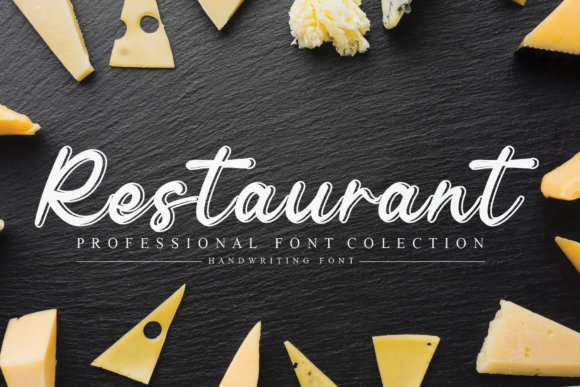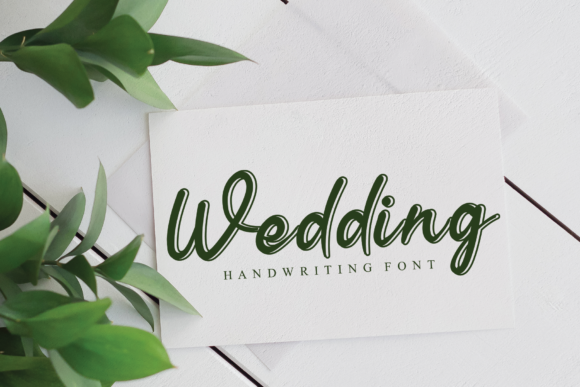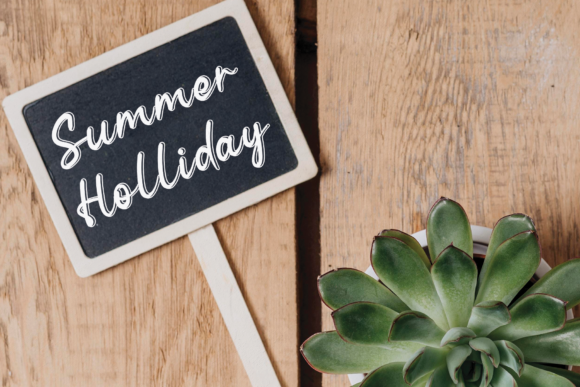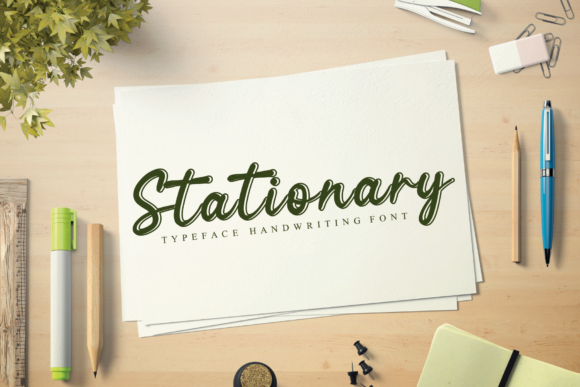
Discover the Perfect Script for Your Next Creative Project
There’s something magical about scribbling down a wedding invitation or a heartfelt letter to a loved one. It’s a moment of pure creativity, where the pen meets the paper and emotions flow freely. As designers, we’re always on the lookout for that special something that brings our designs to life, and sometimes, it’s all about the right font.
Enter the Beautiful Scenery Font, a sweet and delicate handwritten font that exudes joy and romance. With its dainty lines and gentle curves, this font is perfect for adding a personal touch to your designs. Whether you’re crafting wedding invitations, cards, or any other design that needs a touch of whimsy, the Beautiful Scenery Font is sure to impress. As designers, we can appreciate the value of having a versatile and stylish font at our disposal, and the Beautiful Scenery Font is no exception.
Beautiful Scenery Font Key Features
- Unique Characteristics: The Beautiful Scenery Font features a unique blend of natural and elegant elements, with intricate details and subtle textures that evoke a sense of serenity and wonder.
- Style Variations: The Beautiful Scenery Font comes in 5 different styles, including Regular, Italic, Bold, Bold Italic, and Outline, allowing users to customize their design with a range of options.
Designer Review: Beautiful Scenery Font
I’ve had the chance to work with the “Beautiful Scenery Font” and overall, I’d say it’s a decent addition to any designer’s toolkit. ✨ The font’s elegant, flowing curves are reminiscent of handwritten script fonts, making it perfect for adding a touch of sophistication to invitations, greeting cards, or even digital signage.
- ✨ Elegant, flowing curves that add a touch of sophistication
- ✨ Perfect for invitations, greeting cards, or digital signage
- ✨ Highly legible, even at smaller font sizes
- ⚠️ Limited font size range; may not be suitable for larger text
- ⚠️ Not ideal for body text, as it can be quite ornate
- ⚠️ May not be compatible with all operating systems or devices
Overall, I’d say the “Beautiful Scenery Font” is a solid choice for designers who need a elegant, sophisticated font for specific projects. While it may not be suitable for every project, it’s a great addition to any designer’s toolkit.
The Beautiful Scenery Font is ideal for creating a natural, outdoorsy feel in your designs.
Use it for titles, headings, or body text to add a touch of elegance and sophistication.
• Travel and tourism brochures
• Outdoor gear and apparel marketing
• Nature-inspired artwork and designs
• Wedding invitations and stationery